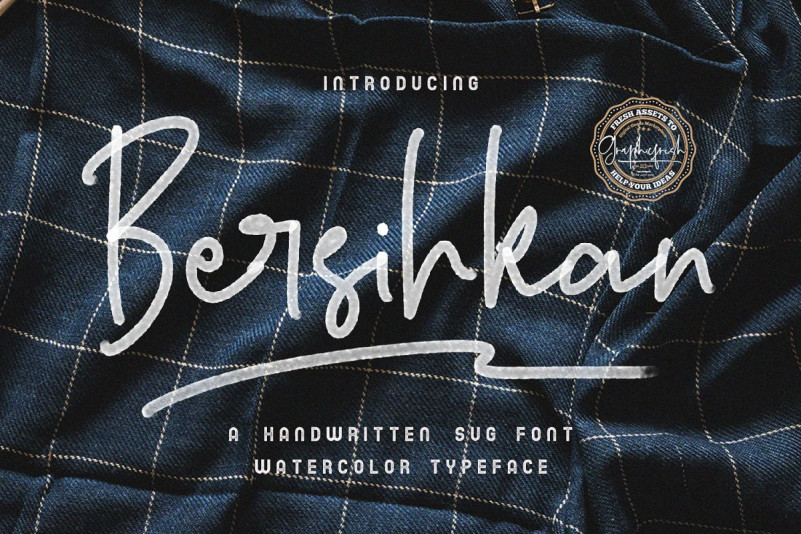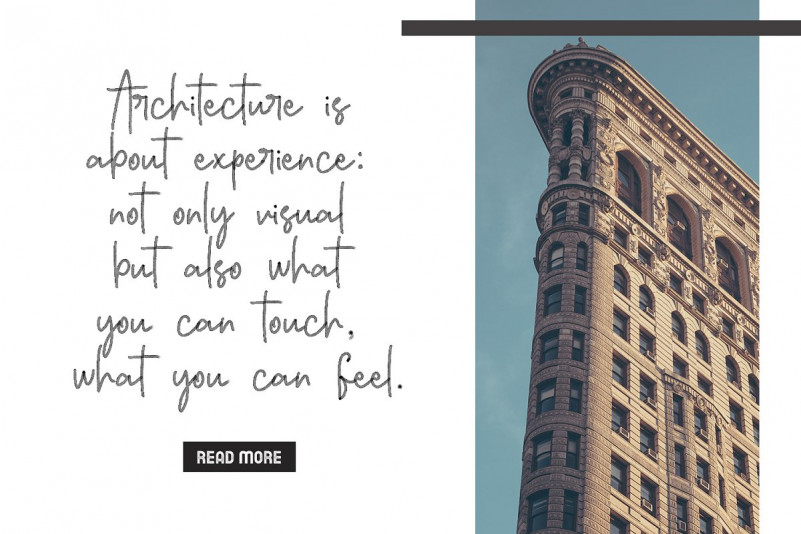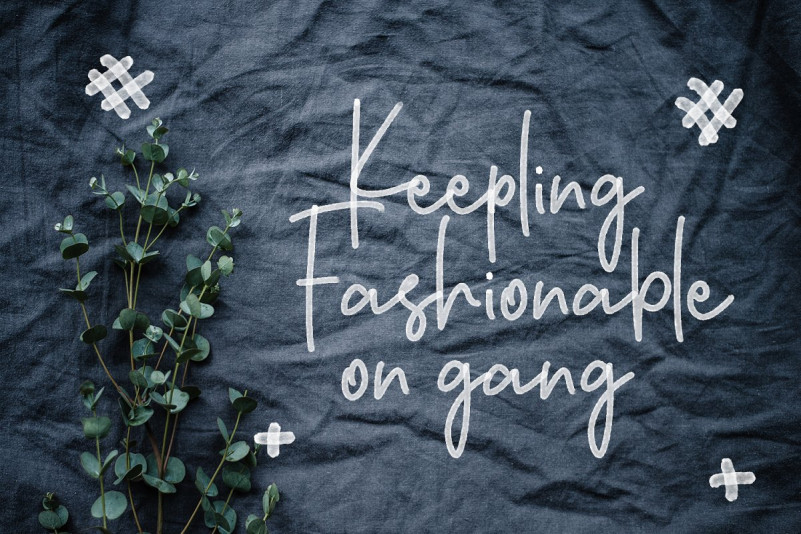
Bersihkan – Watercolor Signature font
Bersihkan – Watercolor Signature SVG Font
This font is made with a watercolor pen. So the impression of watercolor is very beautiful here. I made this with great care, so there was no mistake in making it.It will be perfect for posters, packaging, advertisements, headlines, branding, signboards, and whatever else you want from an urban look and feel.